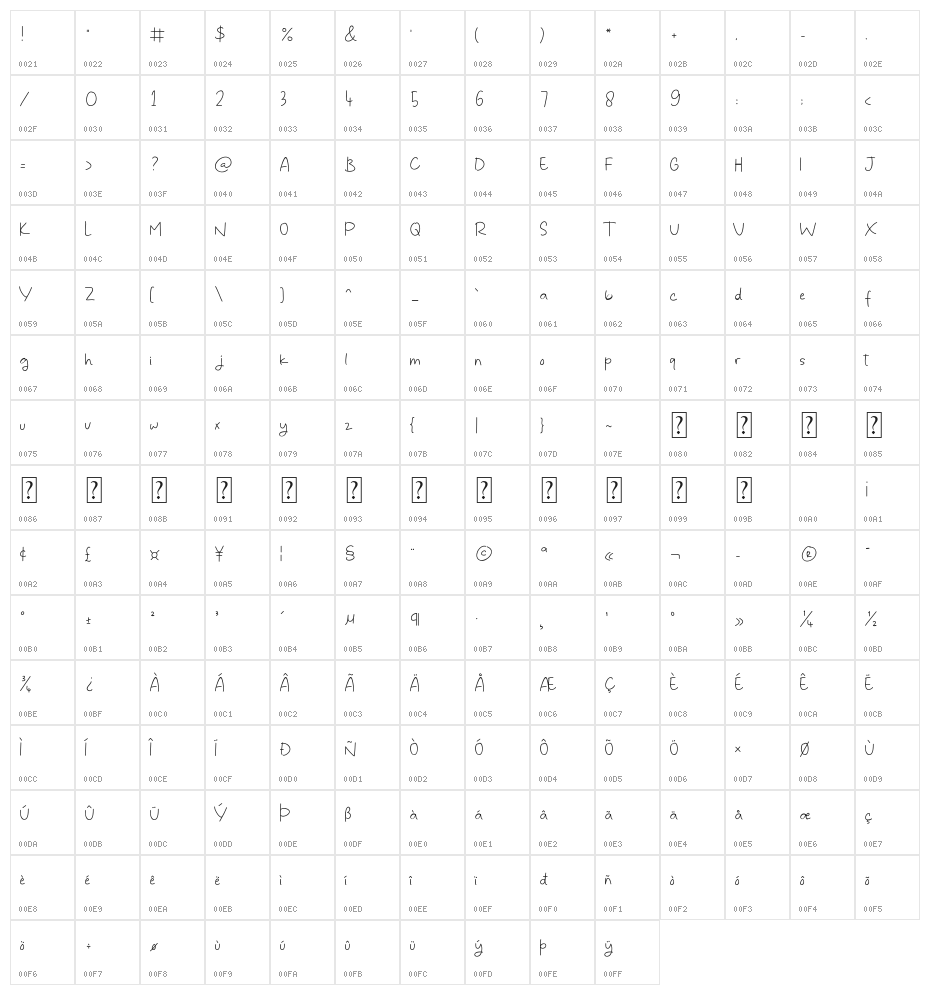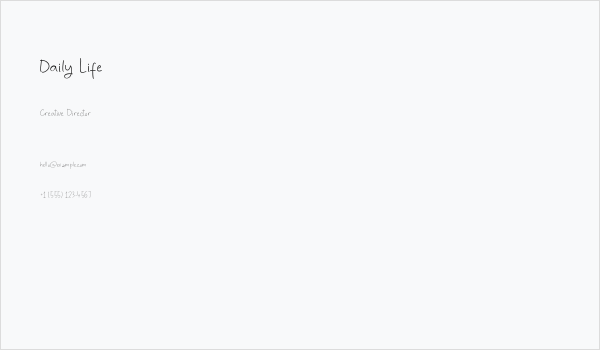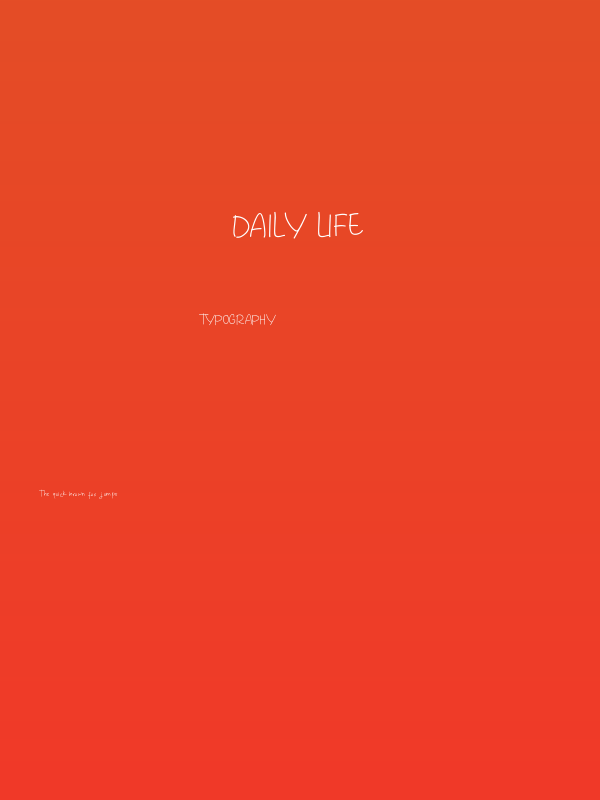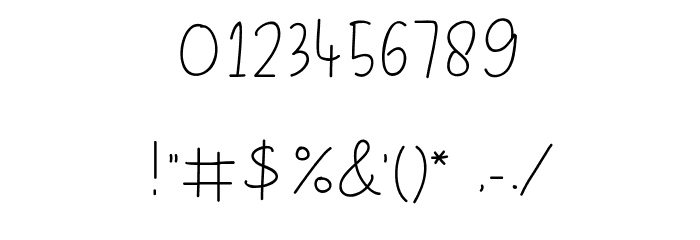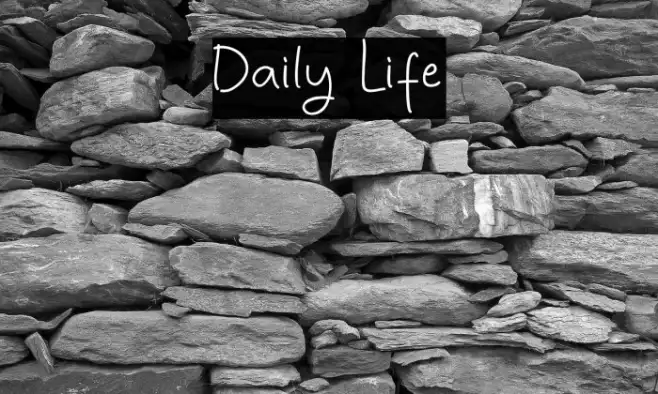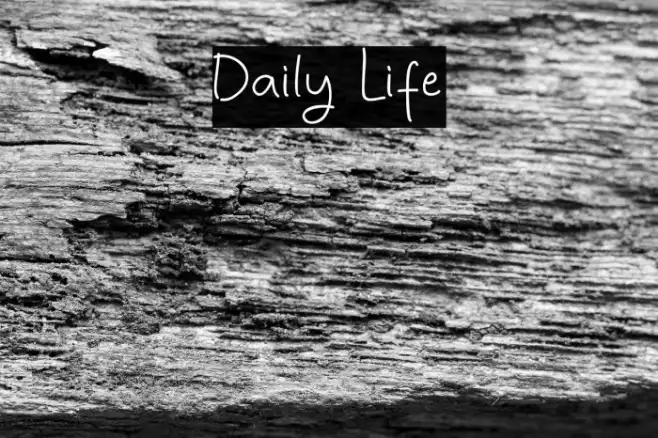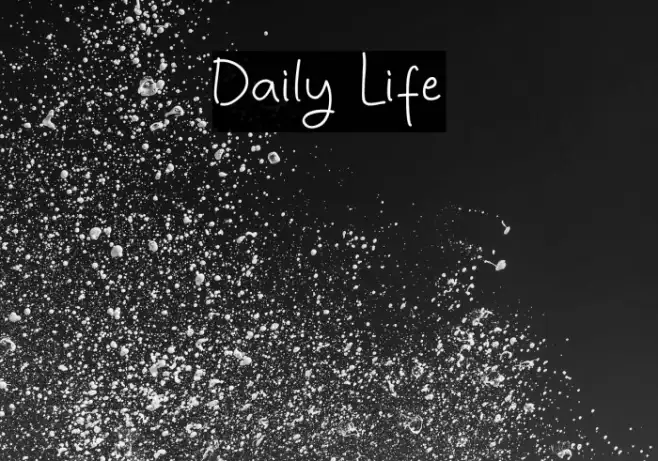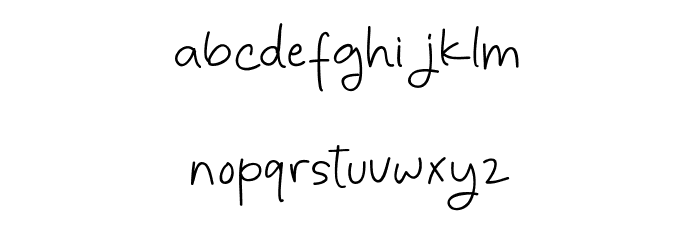
Daily Life Font
Daily Life Description
This font exudes a casual and friendly vibe with its handwritten style. The characters are slightly irregular, giving it a personal touch that mimics natural handwriting. The strokes are consistent in thickness, providing a uniform appearance across all letters and numbers. The uppercase letters are slightly taller than the lowercase, maintaining a balanced proportion. The numerals are clear and easy to read, while the special characters are distinct and well-integrated. Overall, this font is approachable and versatile, suitable for a variety of informal applications.
| Use Case | Headlines, Informal text, Personal projects |
| Proposed Projects | Ideal for personal notes, invitations, casual branding, and social media graphics. |